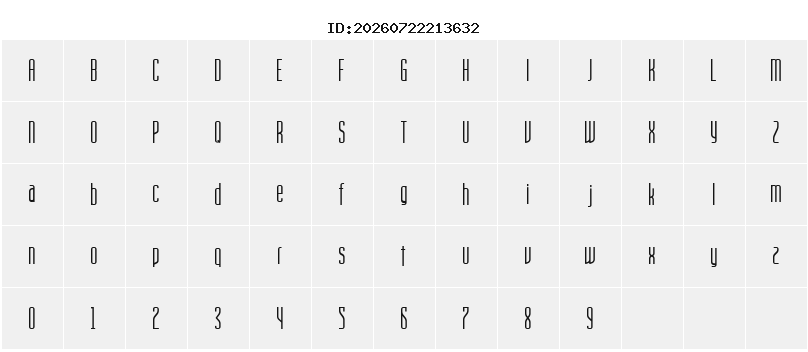
• Font Name: Movie Title AH
• Designer: Mustafa Hayıt
About Movie Title AH.ttf
Movie Title AH.ttf is a modern, elegant sans-serif font designed for ultimate readability and visual harmony. Perfect for branding, headlines, web design, and print materials.